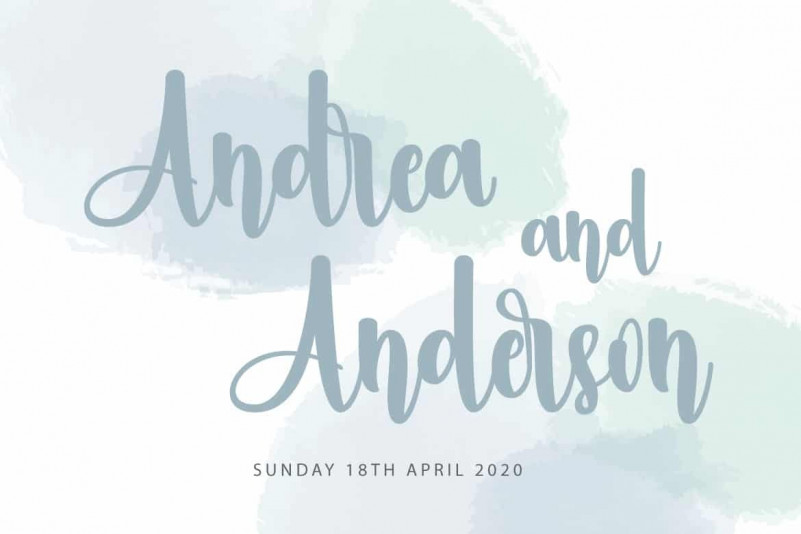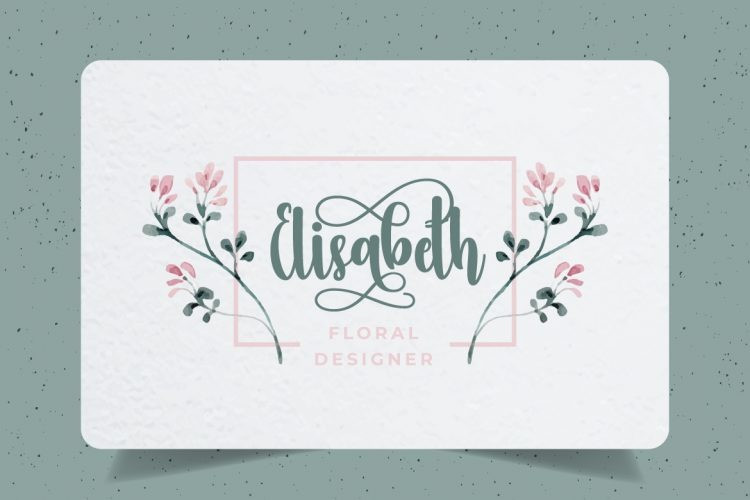
Dastan Script Font
Hi, I proudly present my new cute and beautiful handwritten script. With many of pretty alternate characters, it will nice to make your design cute and beauty as handwritten.